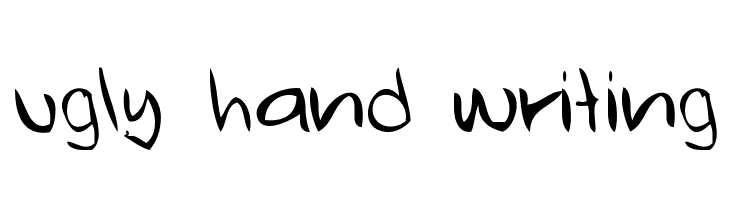
A playful, hand-drawn style font with whimsical and artistic flair.
A playful, handwritten-style font with a condensed and quirky appearance.
A playful, hand-drawn font with a casual and whimsical style.
A modern, condensed italic font with medium contrast and sleek design.
A playful, handwritten-style font with a casual, slanted appearance.
A playful, whimsical handwritten font with irregular and quirky letterforms.
A decorative, hand-drawn font with a playful and artistic style.
A bold, playful handwritten font with rounded, bubbly characters.
A playful, hand-drawn font with a whimsical and artistic style.
A bold, circular font with decorative stars and high contrast.
A playful, casual handwritten font with rounded, consistent strokes.
A sophisticated script font with elegant, flowing cursive characters.
A bold, condensed font with strong, impactful characters.
Highly stylized, illustrative display font using video game character art.
A distressed, futuristic font with a bold, industrial aesthetic.
A bold, distressed font with a textured, vintage appearance.
An ornate, decorative font with whimsical swirls and curls.
A dotted line font designed for handwriting practice, featuring clear and consistent character spacing.
A dotted educational font designed for handwriting practice.